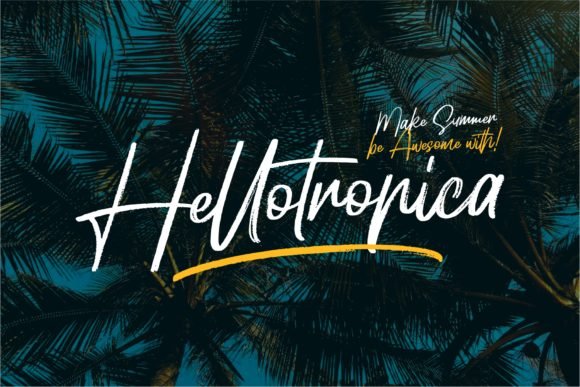
The Perfect Match for Your Next Design Project
Have you ever stared at a blank page, waiting for that spark of creativity to strike? For designers, those moments are what drive us to create something truly special. And what’s more special than a font that transports you to a tropical paradise? Introducing the Hellotropica Font, a bold handwritten font that’s about to become your new best friend.
This vibrant font is designed to add a touch of island charm to any design project. With its playful, cursive script, Hellotropica Font is the perfect choice for branding, advertising, and even wedding invitations. Whether you’re a seasoned designer or just starting out, this font is sure to elevate your work and make it stand out from the crowd.
Key Features of Hellotropica Font
- Unique Characteristics: Hellotropica Font features a vibrant, playful, and energetic design, making it ideal for creative projects, such as graphic novels, children’s books, and advertising materials.
Design Review: Hellotropica Font
Overall, I’m quite impressed with the Hellotropica Font, and I think it’s a great addition to any designer’s toolkit. ✨
- The font’s unique blend of modern and vintage elements gives it a distinctive look that’s hard to find elsewhere. ✨
- The extensive character set and language support make it a great choice for global brands and businesses. ✨
- The font’s versatility shines through in its various weights and styles, from the lightest sans-serif to the boldest display font. ✨
- The font’s intricacy can sometimes make it difficult to read at smaller font sizes, particularly in digital formats. ⚠️
- The lack of a clear, detailed style guide can make it challenging for designers to ensure consistency across different applications and mediums. ⚠️
Despite these limitations, I think the Hellotropica Font is a solid choice for designers looking to add some personality to their projects. Its unique style and versatility make it a great asset for anyone looking to stand out from the crowd. With a bit of careful planning and attention to detail, I think this font can help designers achieve some truly stunning results.
Tips for Getting the Most Out of Hellotropica Font
Here are a few tips to help you get the most out of Hellotropica font:
- Use Hellotropica font for titles and headings to add a touch of elegance.
- Combine Hellotropica font with other fonts to create a unique and eye-catching design.